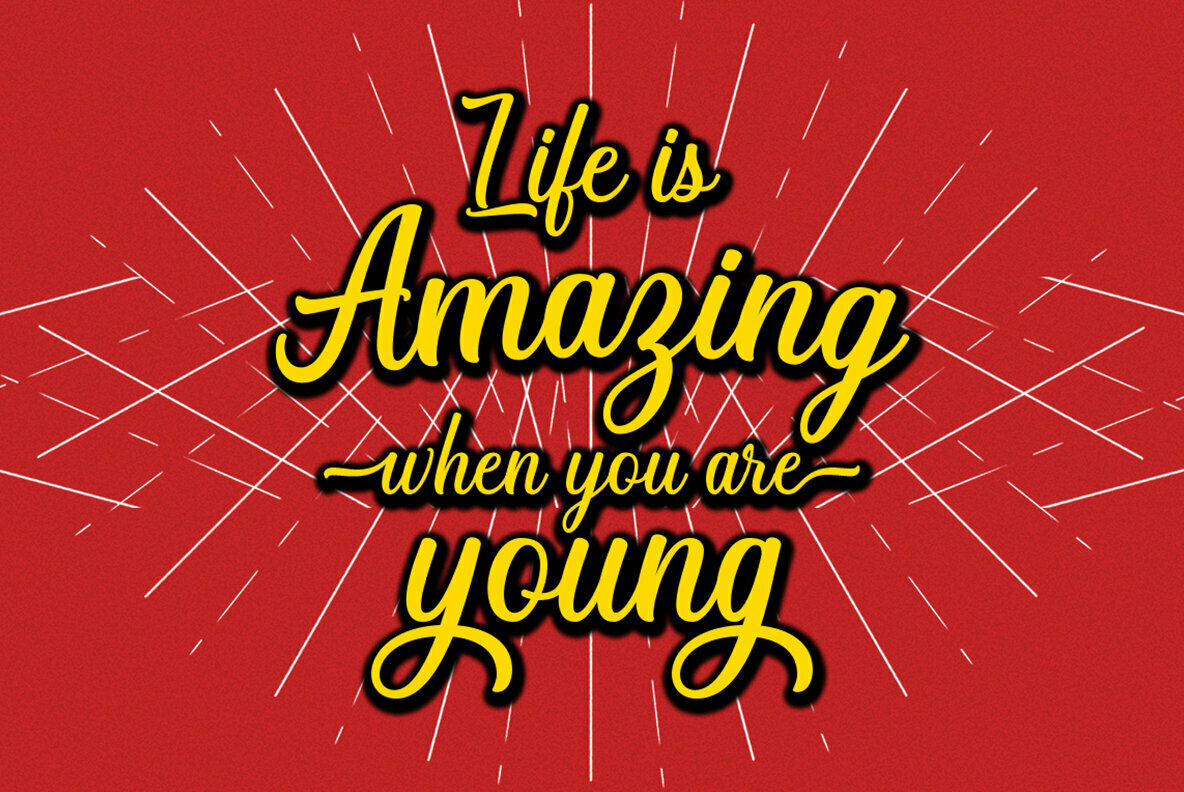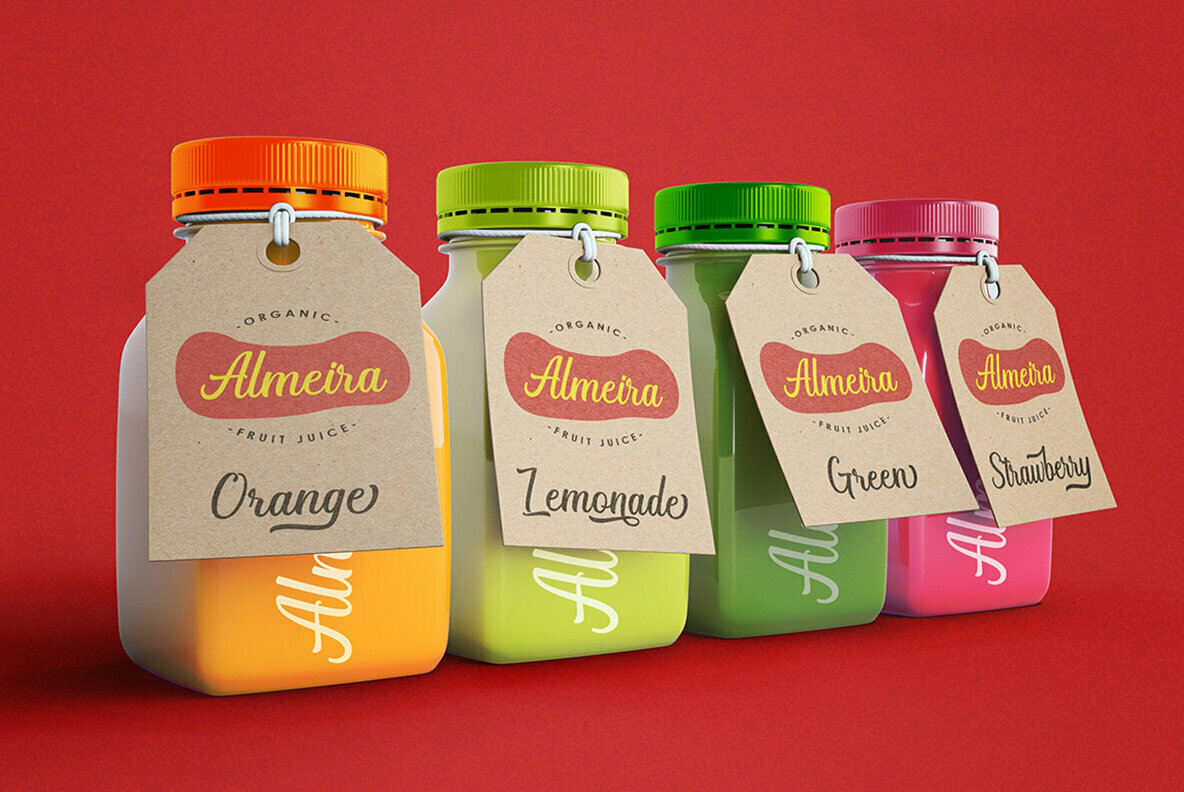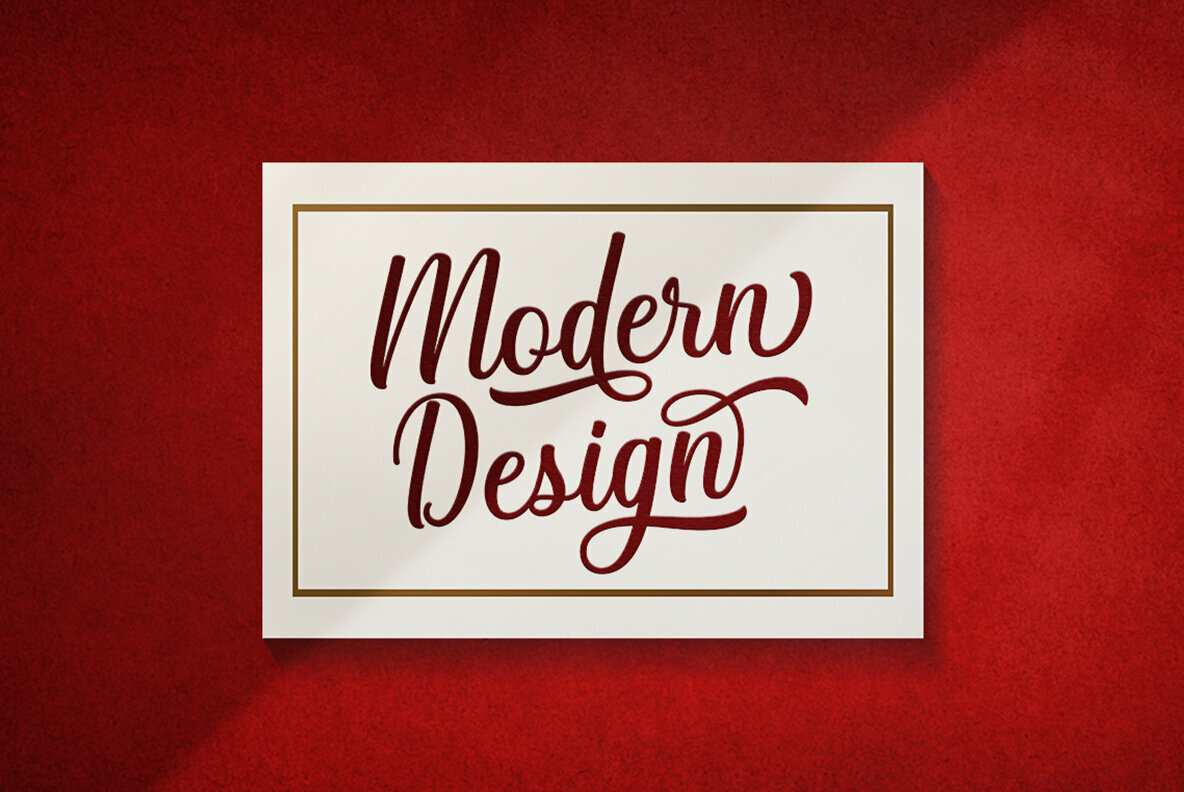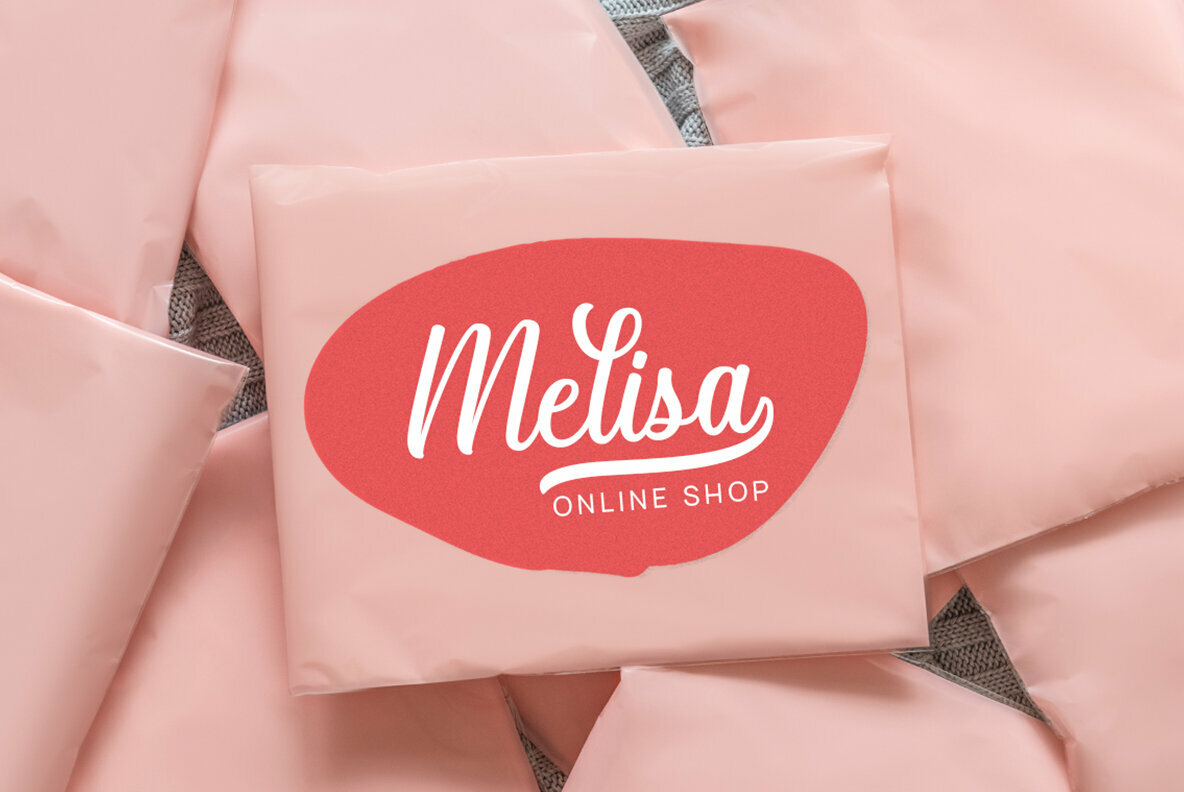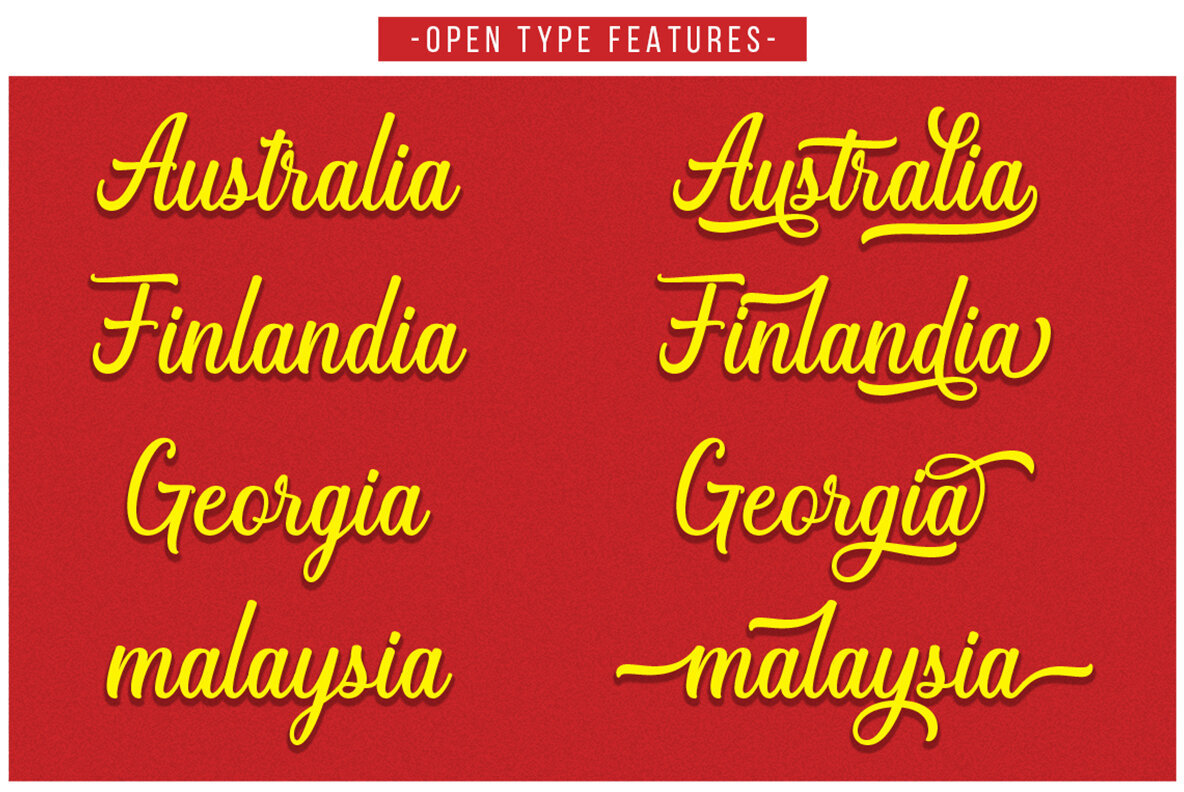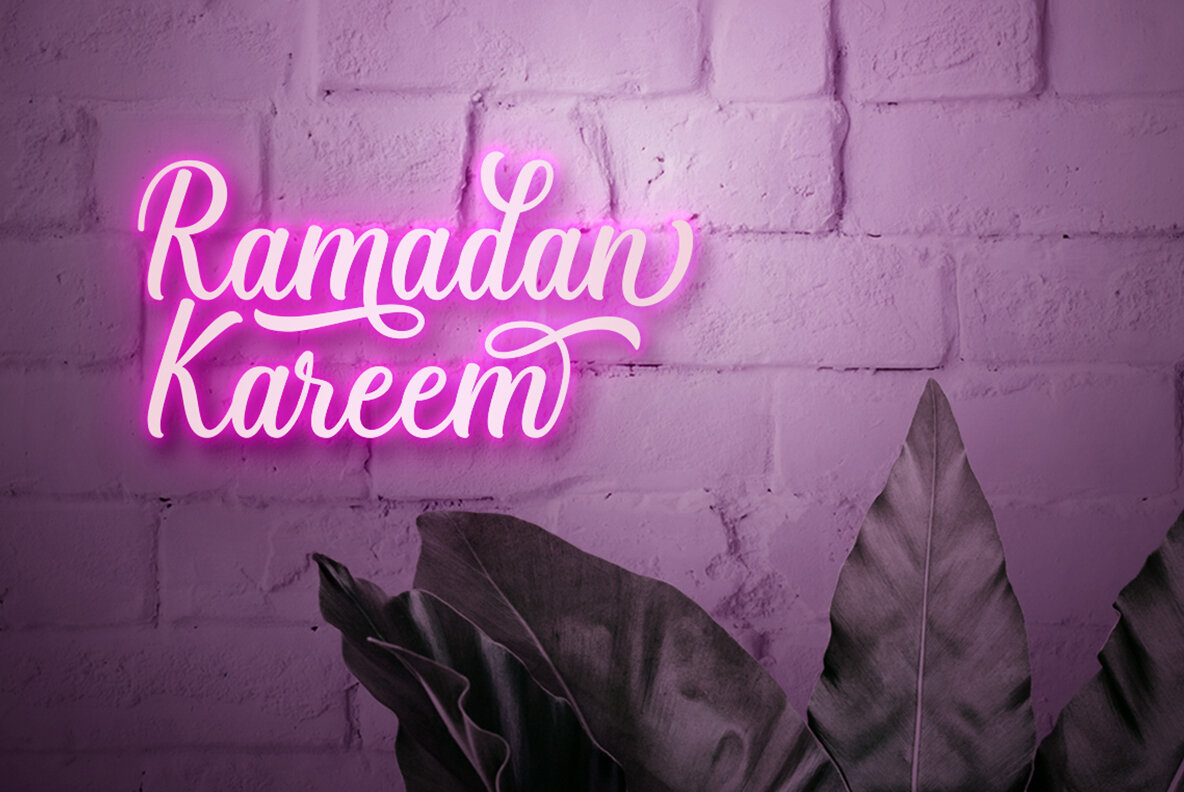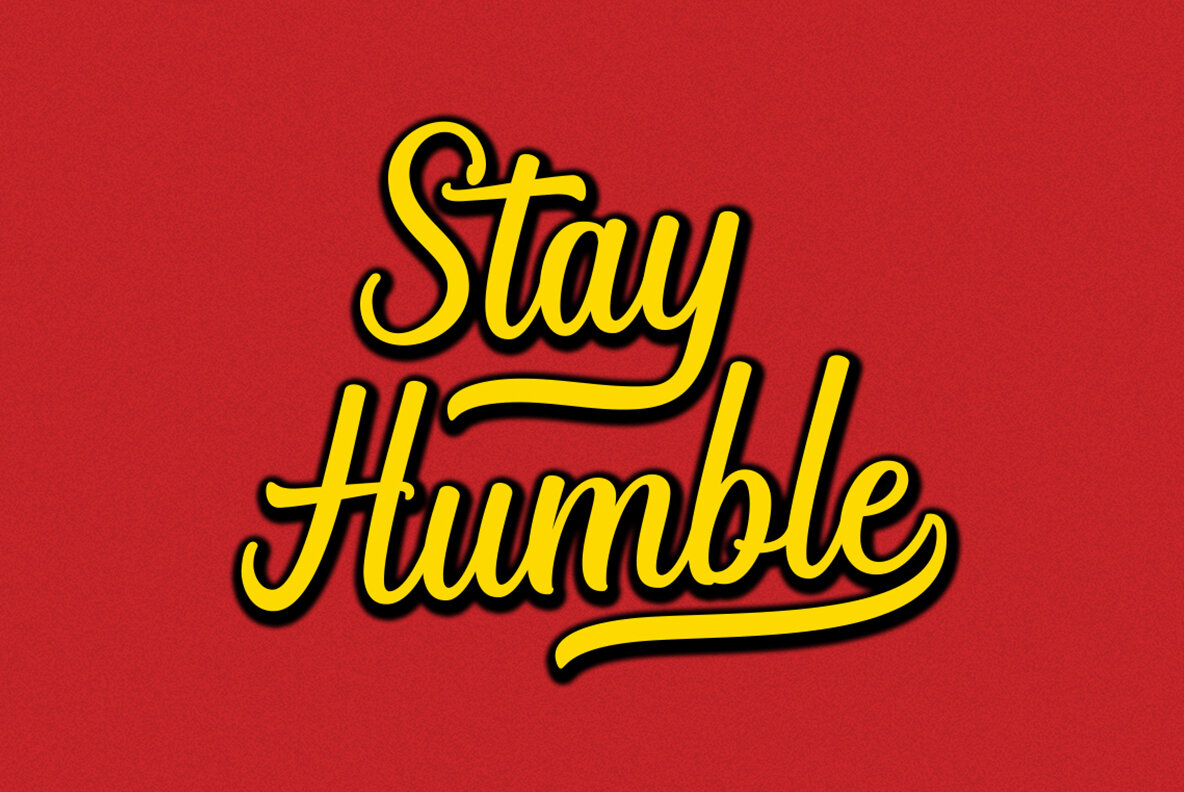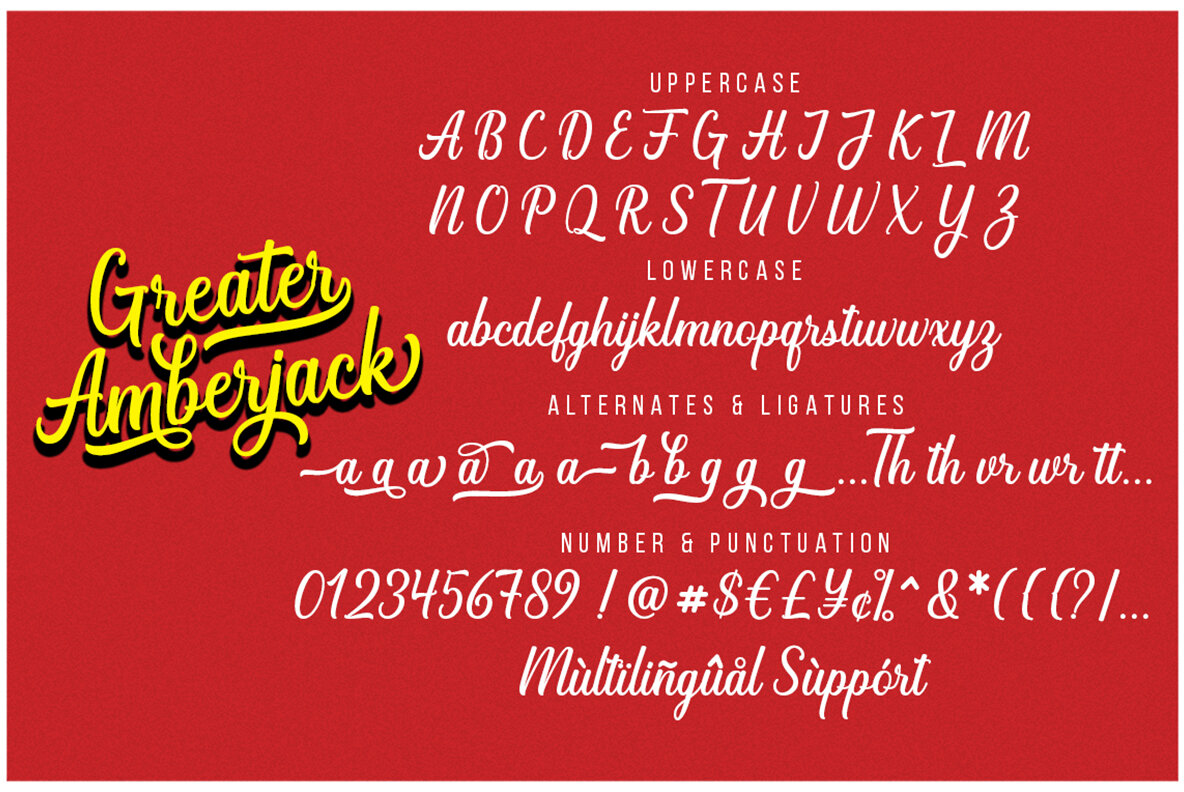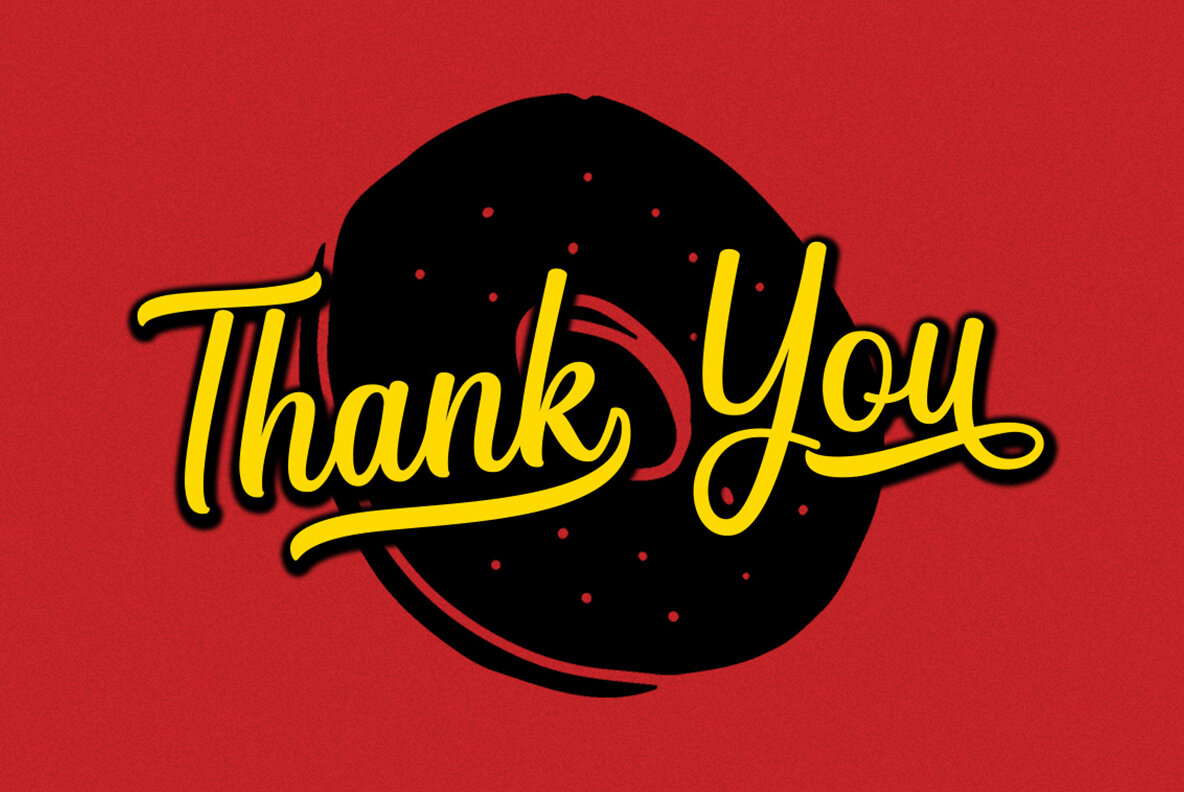
Greater Amberjack Font
Greater Amberjack is a modern script typeface, a modern script that is elegant and fun. Combination with classic & modern style fonts. This font can be used easily, even in mixing and matching with other fonts. so that it can provide alternatives and new sensations for you in working on various projects. This font you can use for various purposes. Such as logos, brochure, wedding invitations, cover magazine, packaging, t-shirts, letterhead, labels, news, posters, and more.
Greater Amberjack features OpenType stylistic alternates, ligatures and International support for most Western Languages is included. To enable the OpenType Stylistic alternates, you need a program that supports OpenType features such as Adobe Illustrator CS, Adobe Indesign & CorelDraw X6-X7, Microsoft Word 2010 or later versions.